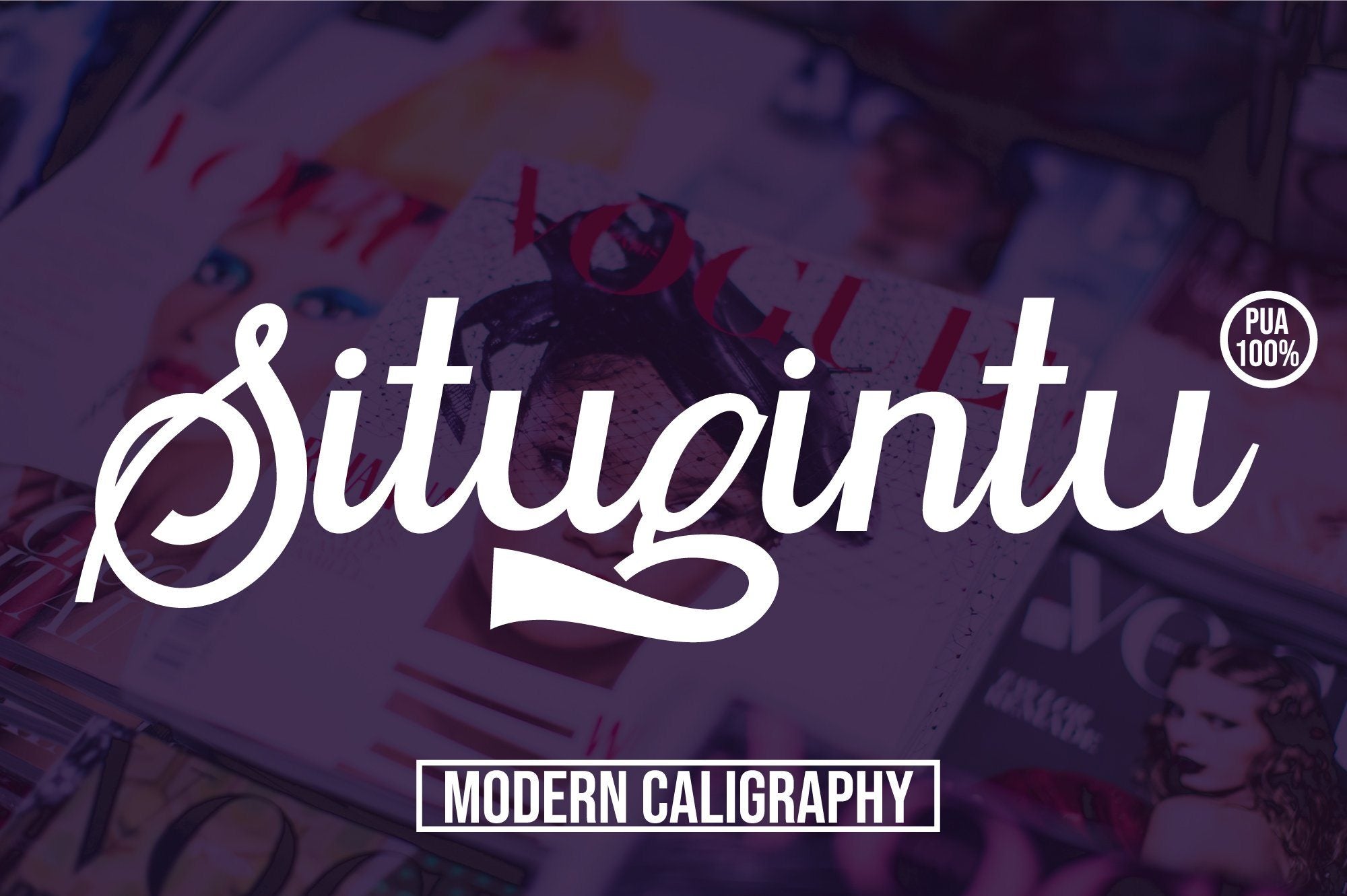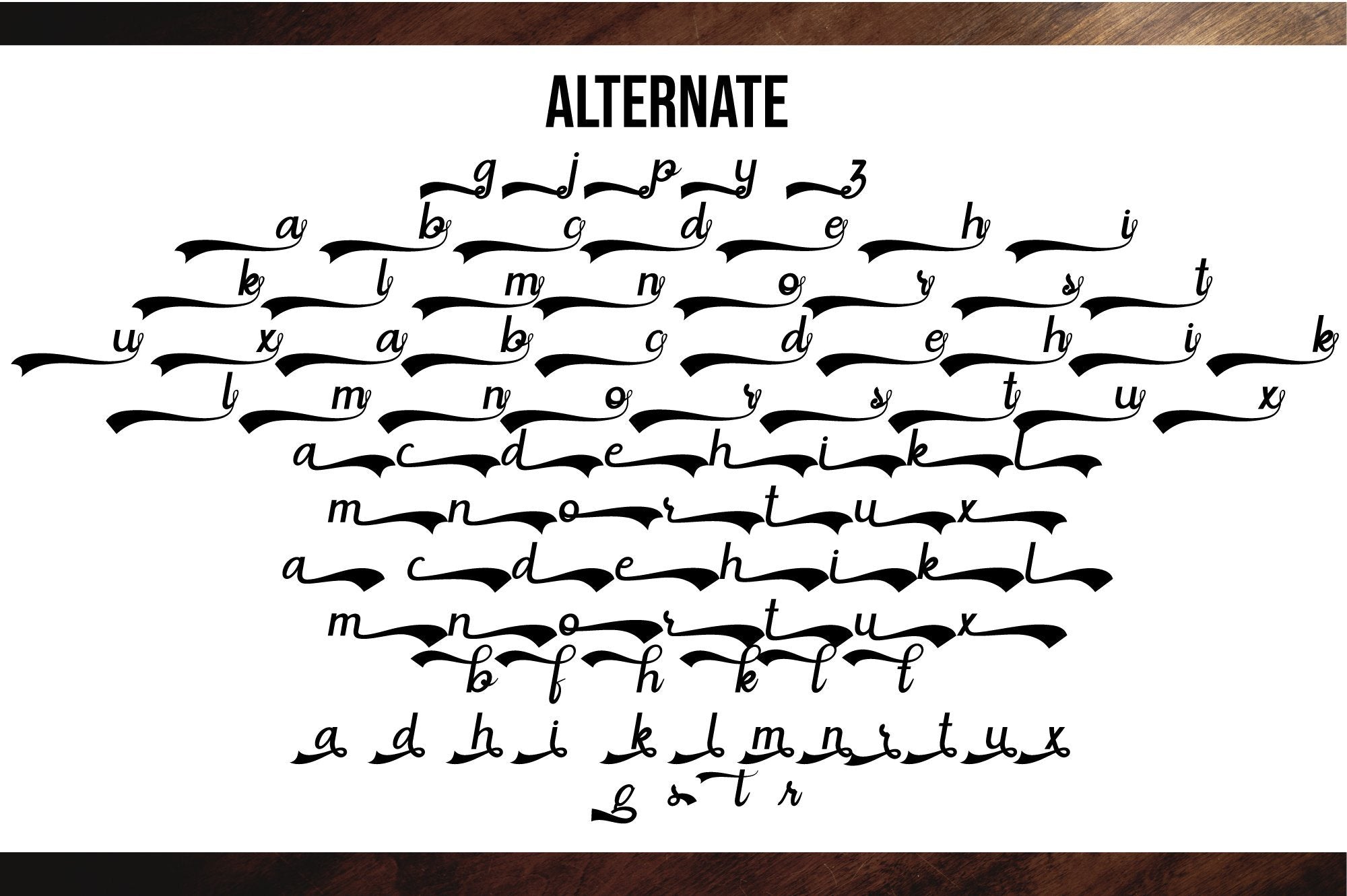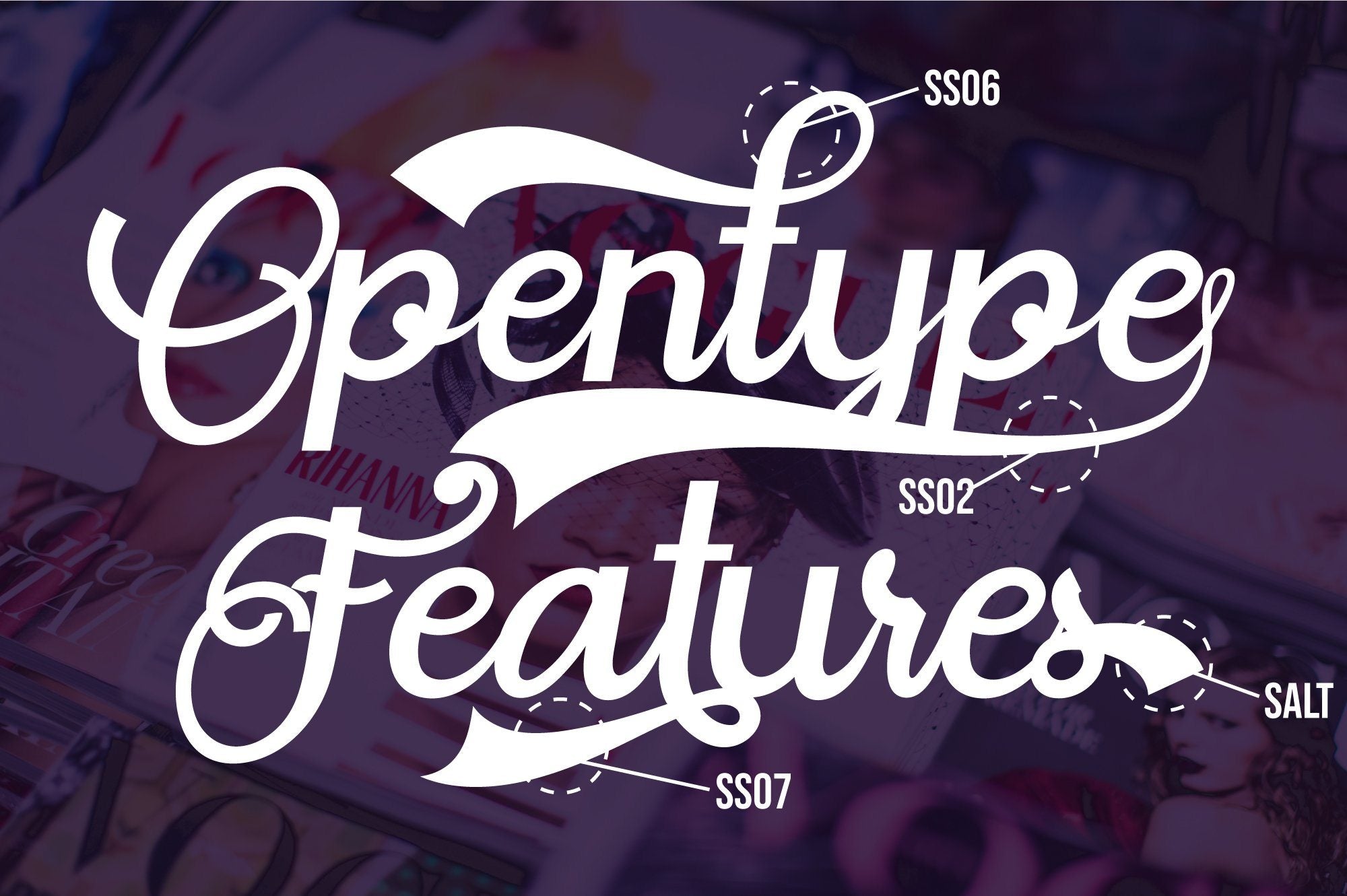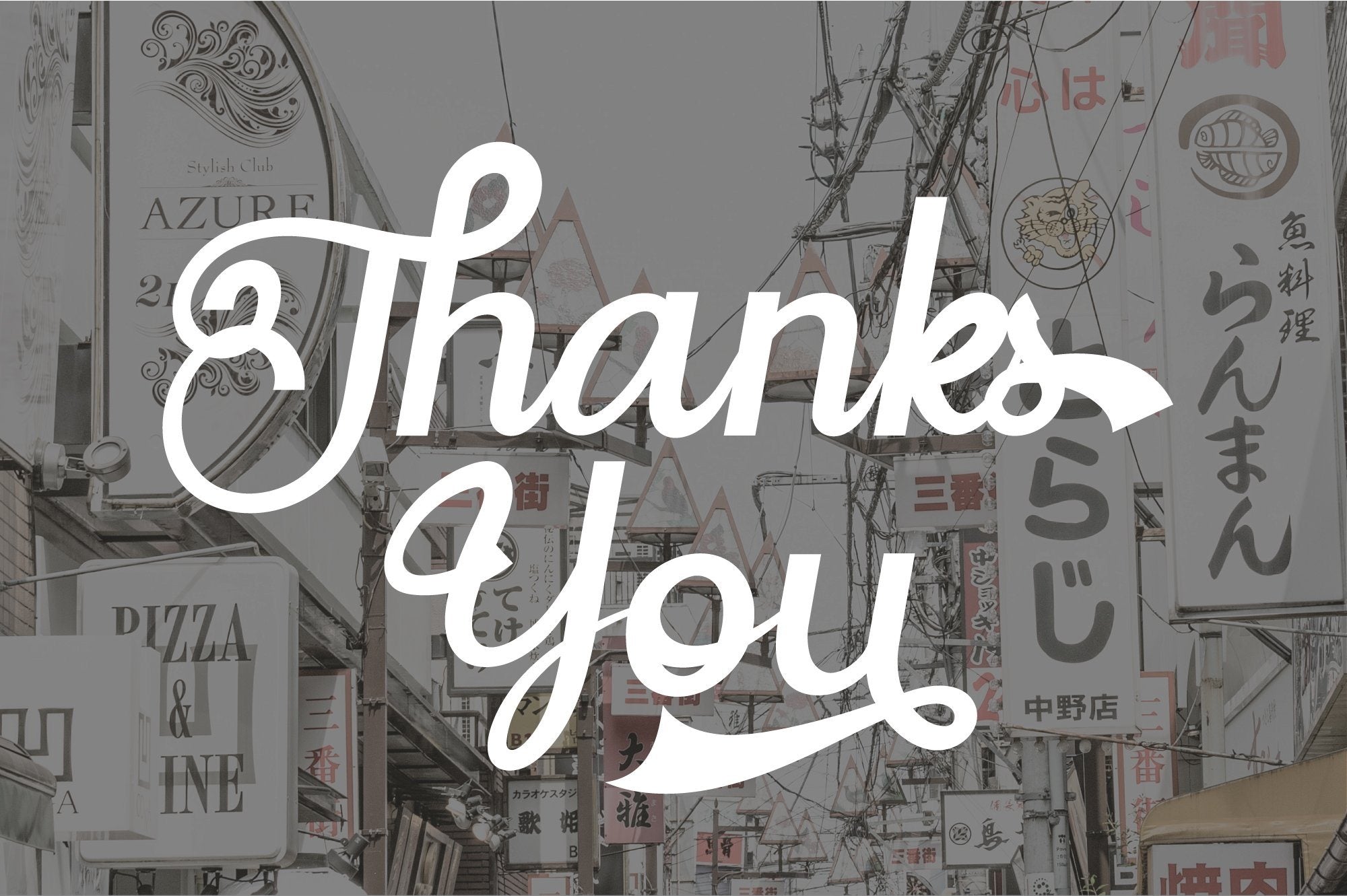
About Situgintu Calligraphy
HURRY UP LIMITED DISCOUNT 3 $ FOR 1000 FIRST BUYER Situgintu Calligraphy has lots of alternate characters, swashes and ligatures. It has also a bunch of tails with different shapes and widths to give the logotype or sports look to your design. You can design beautiful, elegant and diverse typographic elements with it. It’s well suited for logos, lettering artwork, t-shirt designs, editorial illustrations to name a few. Features : PUA Encoded 100% Acessibility Stylistic Alternates Standard Ligatures Stylistic set SS01-SS07 If you don’t have a program that supports OpenType features such as Adobe Illustrator and CorelDraw X Versions, you can access all the alternate glyphs using Font Book (Mac) or Character Map (Windows).To Access Alternate Characters Click The Link Below: How to access alternates in Adobe illustrator CS https://www.youtube.com/watch?v=geL0Ye02Ryk How to access alternates in Adobe illustrator CC https://www.youtube.com/watch?v=V25yiUh8BcE How to access alternates in Ms Word https://www.youtube.com/watch?v=HxkhZiCuwEw How to access alternates in Coreldraw X7 https://www.youtube.com/watch?v=UBVsufJjons How to access alternates in Indesign CS https://www.youtube.com/watch?v=HgZTCxKG14Q How to access alternates in Adobe Photoshop CC https://www.youtube.com/watch?v=BYKXl58AdNY If you have any question, don’t hesitate to contact me by email  Thanks and happy designing ???? Thank You for purchase!